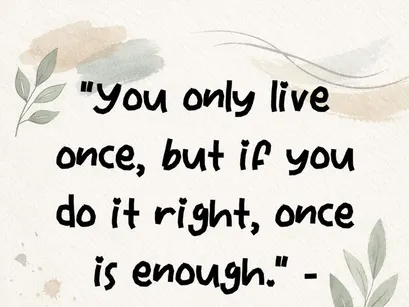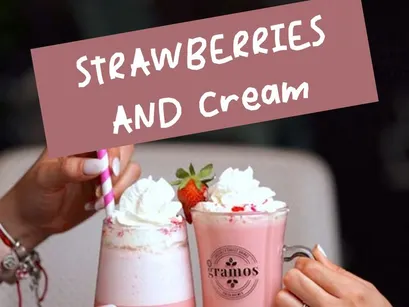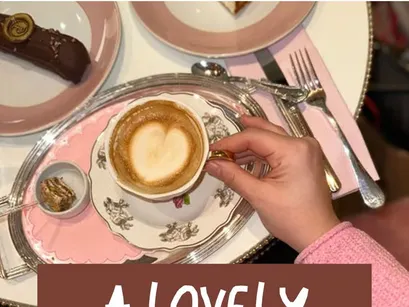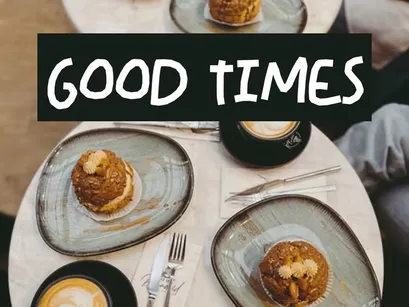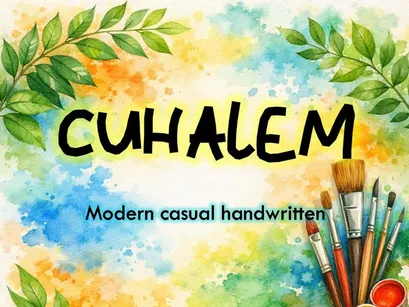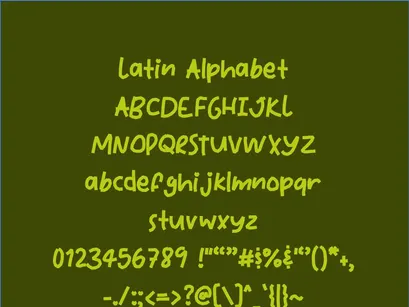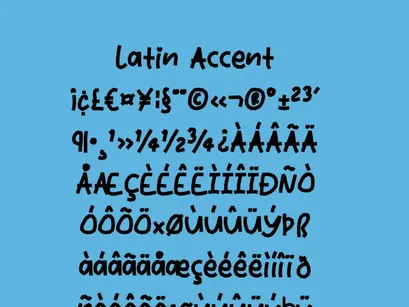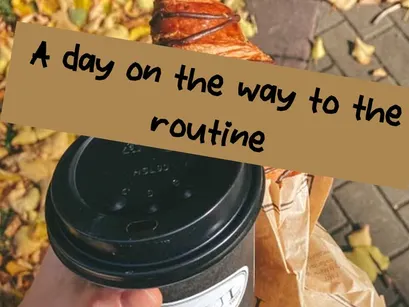
CUHALEM is a modern, handcrafted typeface featuring cheerful, natural strokes, inspired by the fluidity of brushwork and the spontaneity of hand-drawn design. Its casual handwritten style blends energy with warmth, making it perfect for creative projects, artistic branding, planners, packaging, and soulful visual content.
• Modern, artistic style
• Fluid, expressive lettering
• Ideal for handcrafted and digital design projects